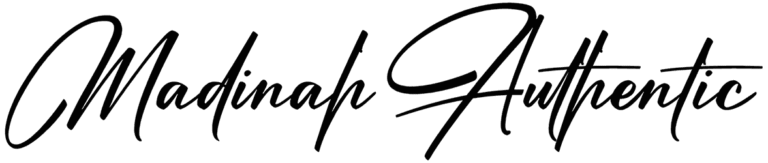
Brilliance Signature Font
If you are going to impress the audience with high-quality graphic content, we strongly offer you to pick up a signature font such as Brilliance Signature to achieve your goal.
This handwritten font comes with a cursive design that dances along the baseline, so it would look really perfect on a wide set of artwork including posters, business cards, diplomas, invitations, and magazines. Due to its soft texture, it adds a sense of delicacy, precision, or drama to your projects.